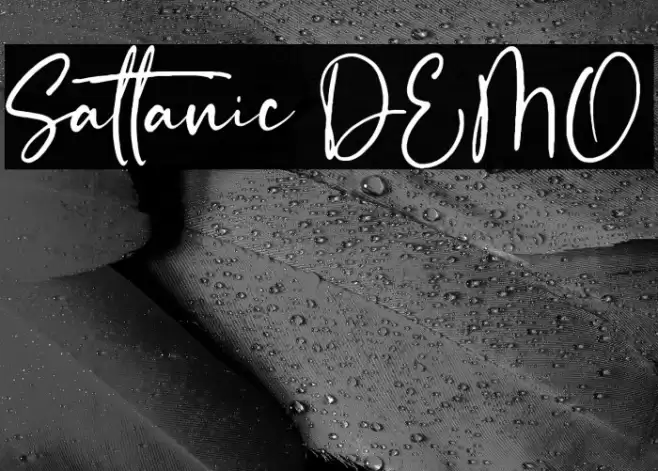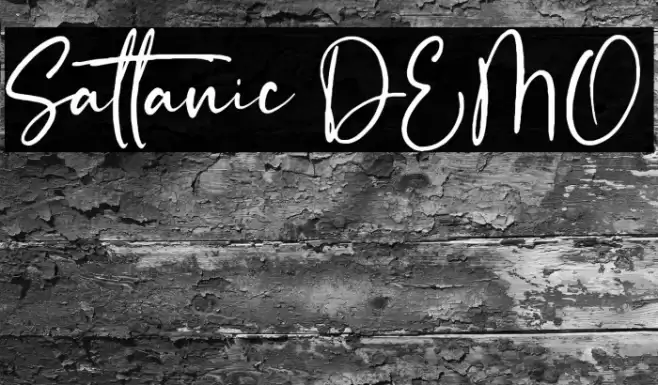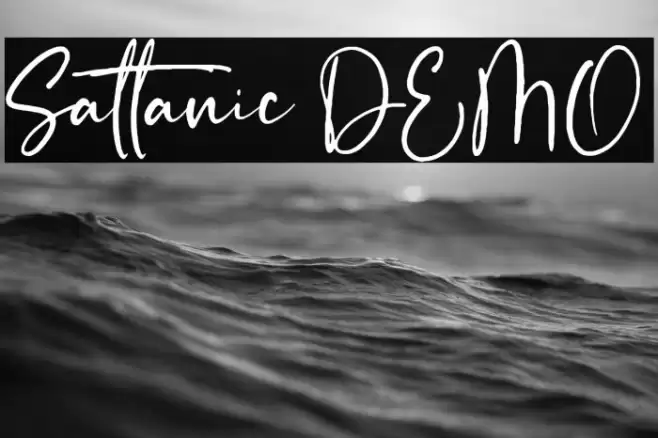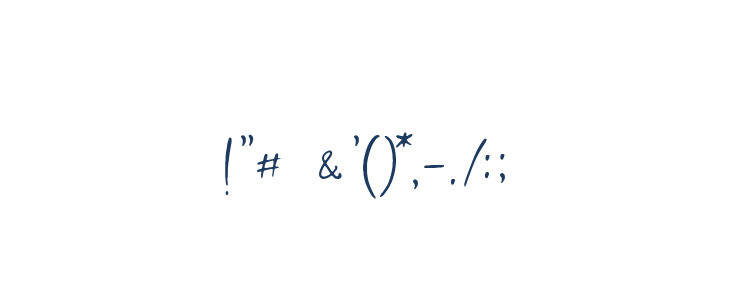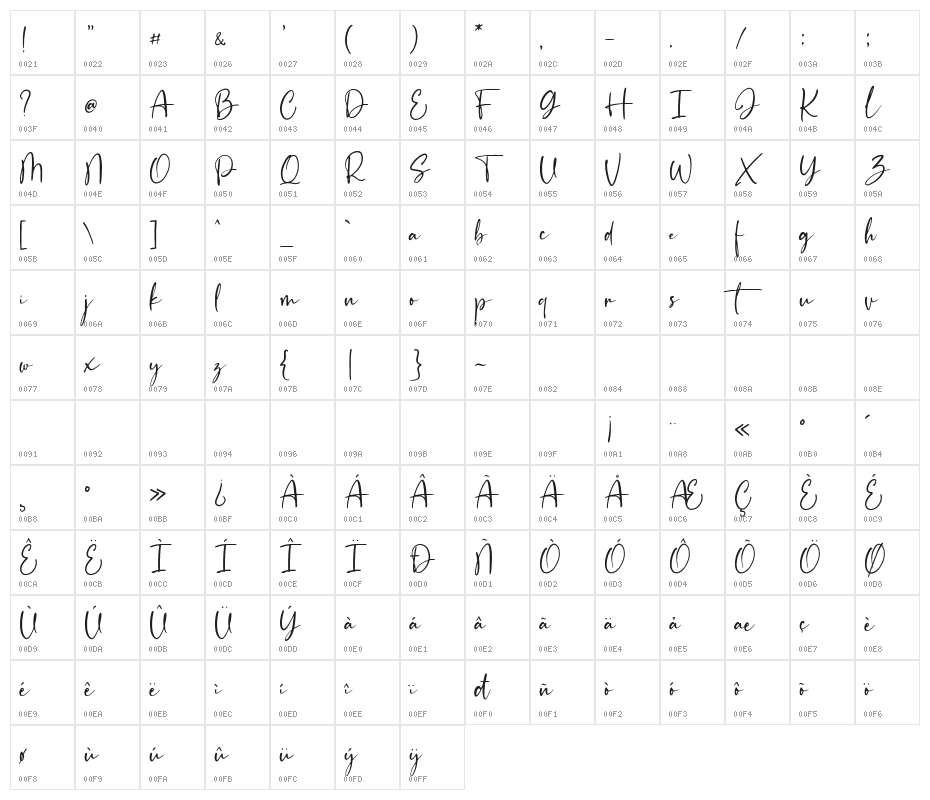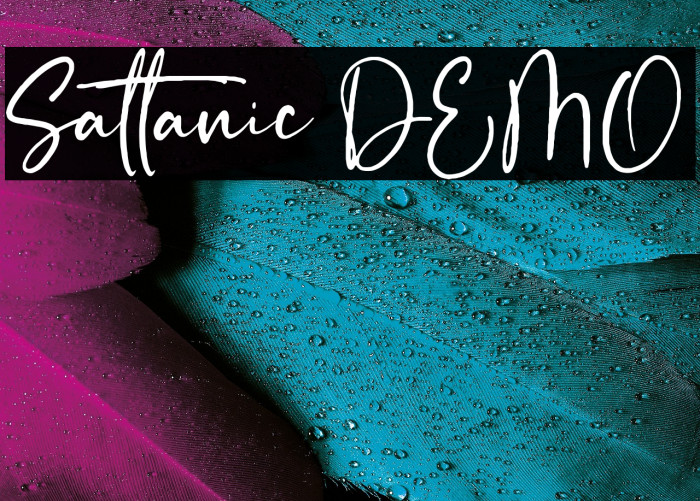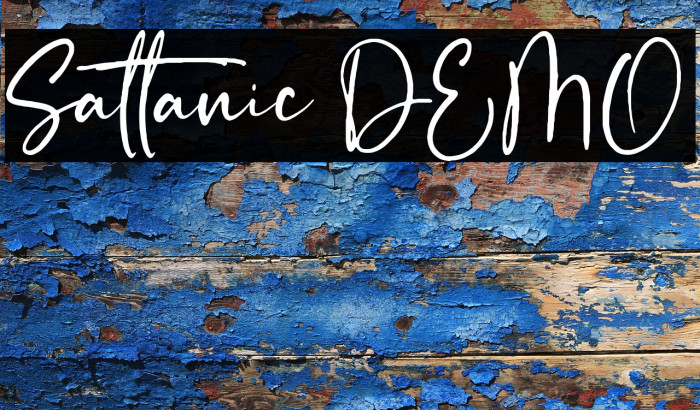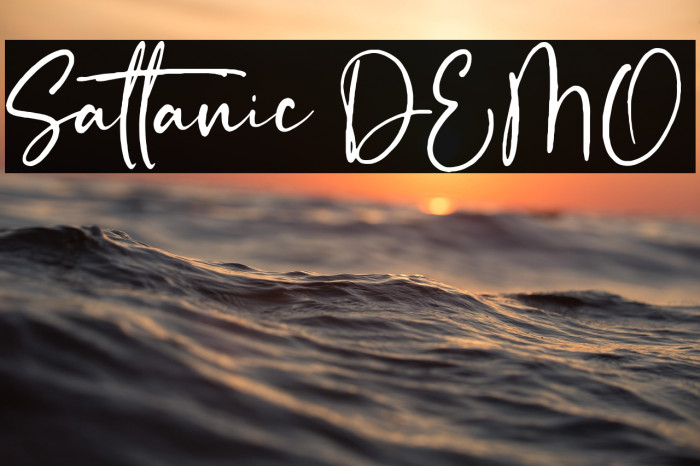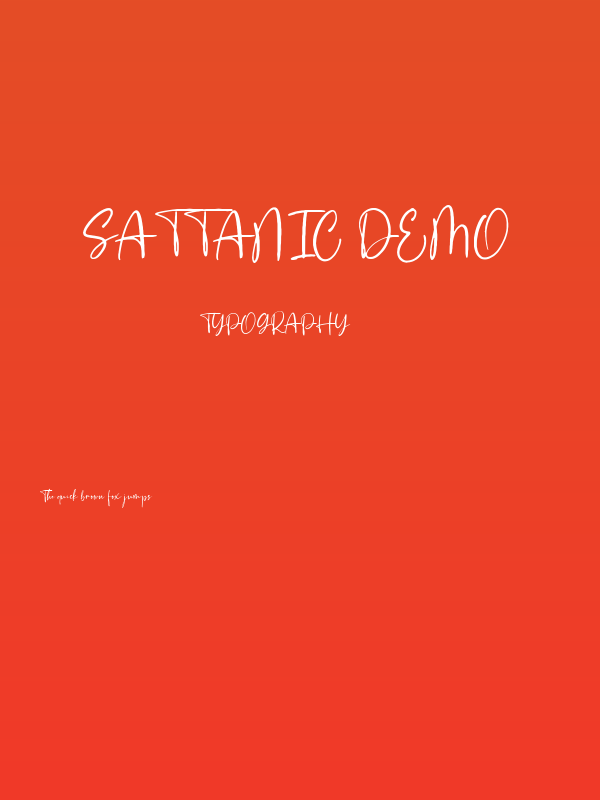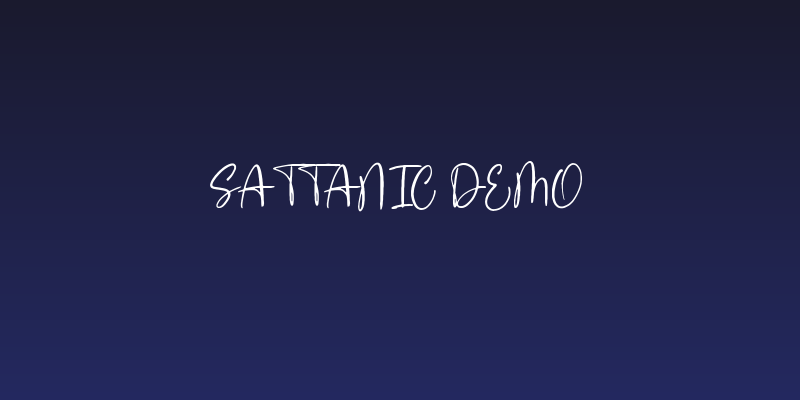
Sattanic DEMO Font
Sattanic DEMO Description
This font features a dynamic and expressive handwritten style, characterized by its fluid strokes and playful curves. The uppercase letters are bold and slightly slanted, giving them a sense of movement and energy. The lowercase letters maintain a consistent flow, with some letters extending below the baseline, adding to the font's casual and artistic feel. The numerals and special characters are crafted with the same attention to detail, ensuring a cohesive look across all elements. This font is perfect for projects that require a personal touch, such as invitations, greeting cards, or branding materials.
A dynamic and expressive handwritten font with fluid strokes and playful curves from Uncategorized fonts.
- Proposed Projects: Ideal for invitations, greeting cards, branding materials, and artistic projects.
- Use Case: Logos, Headlines, Artistic projects